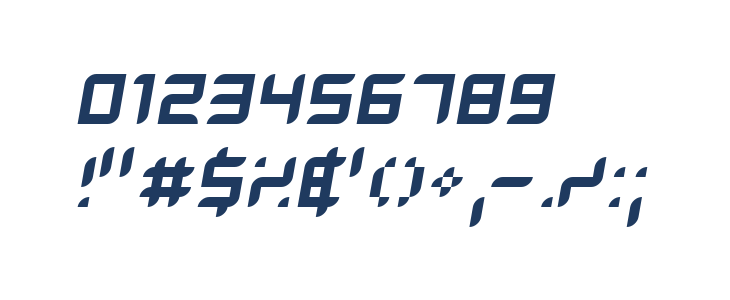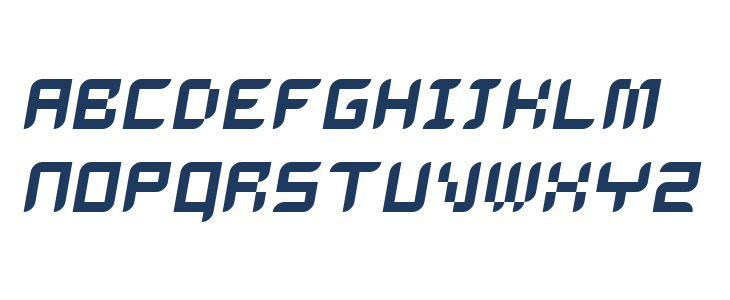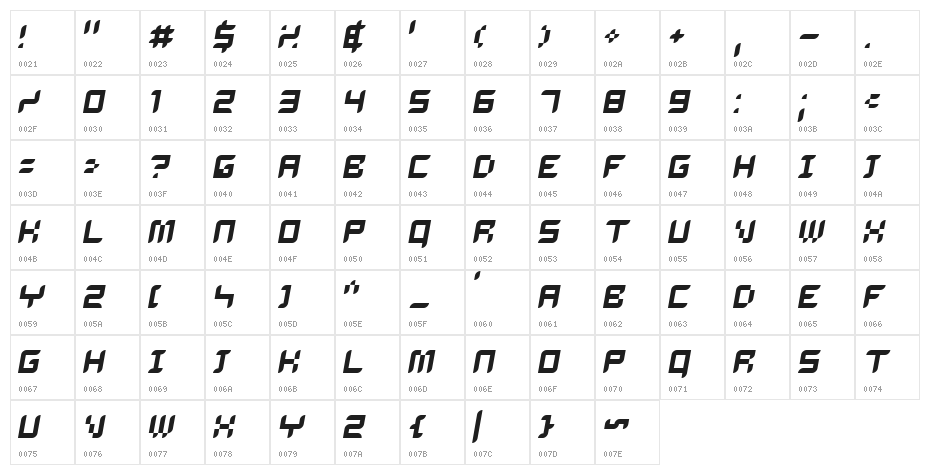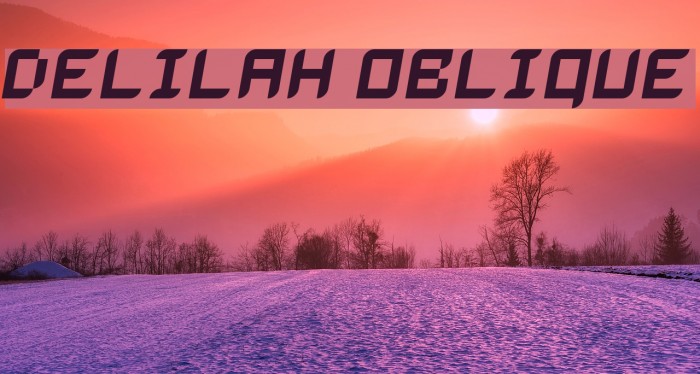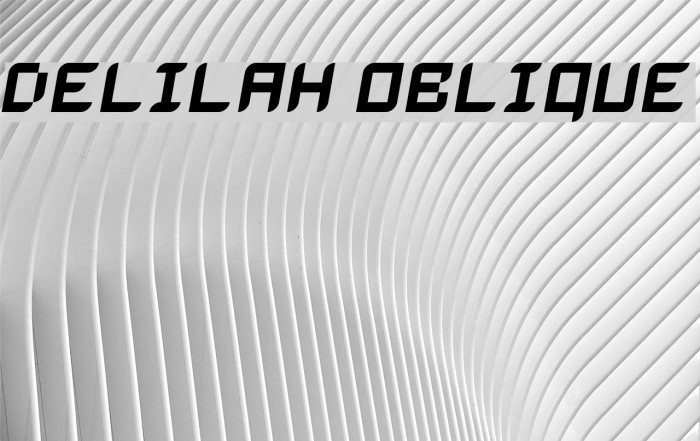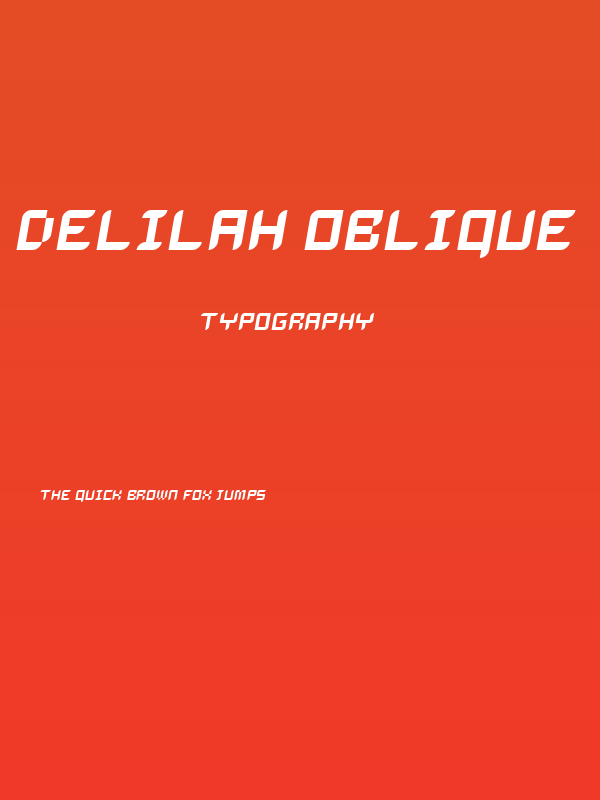
Delilah Oblique Font
Delilah Oblique Description
This font features a bold and dynamic style with a distinct slant, giving it an oblique appearance. The characters are designed with a modern flair, incorporating sharp angles and clean lines that convey a sense of speed and movement. The uppercase and lowercase letters maintain a consistent height, while the numerals are equally bold and striking. Special characters are seamlessly integrated, maintaining the overall aesthetic. The font's design is both futuristic and sporty, making it suitable for projects that require a strong visual impact.
| Proposed Projects | Ideal for sports branding, automotive designs, tech-related projects, and dynamic advertising campaigns. |